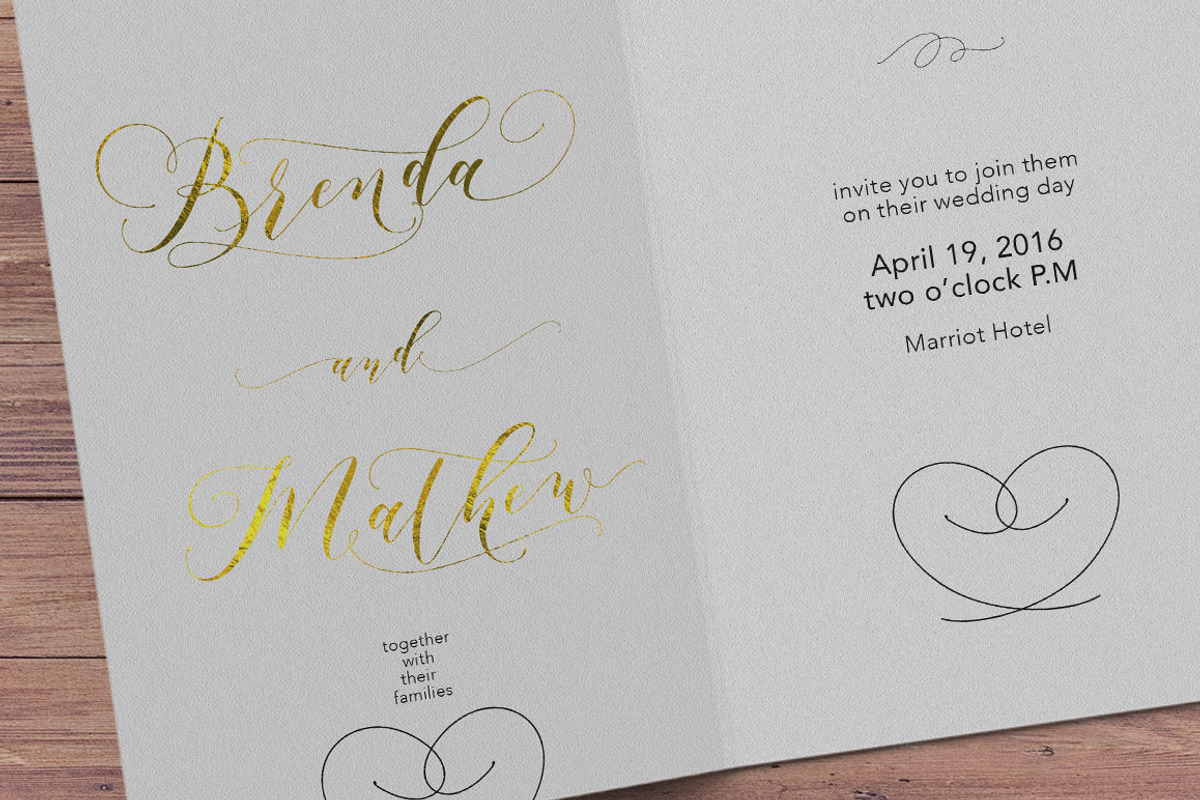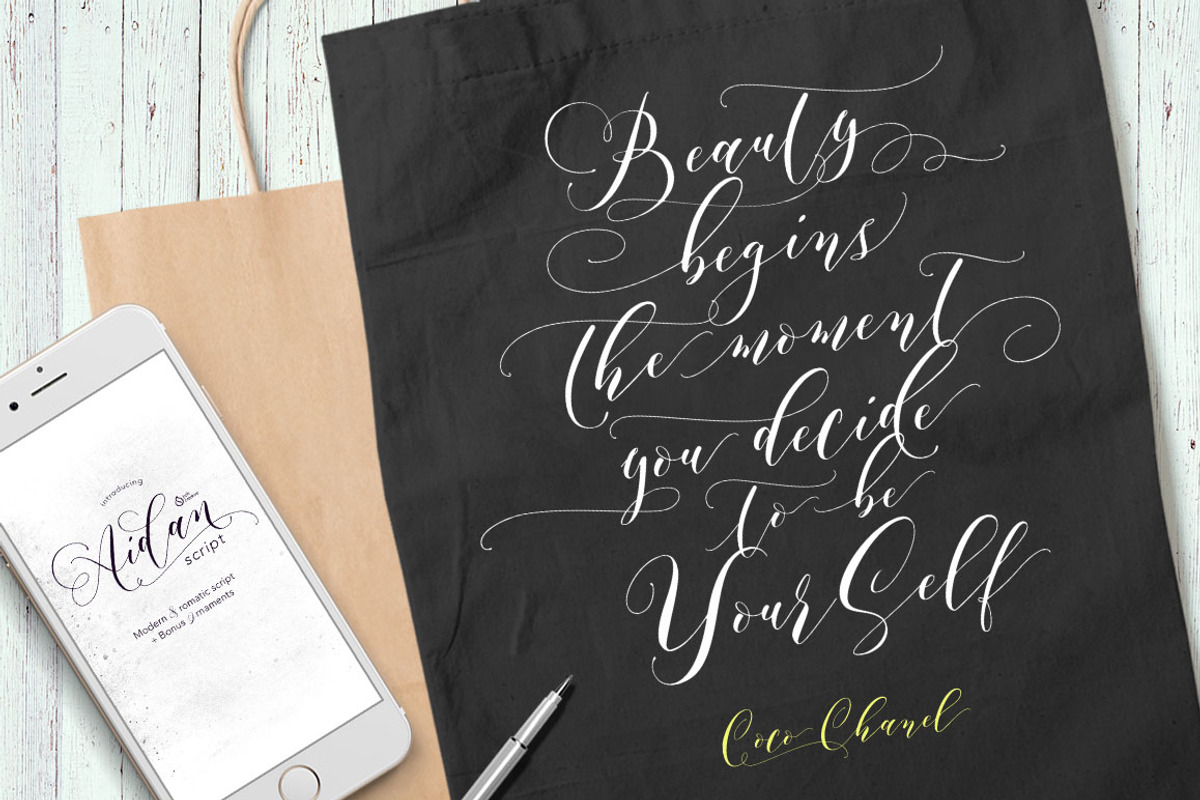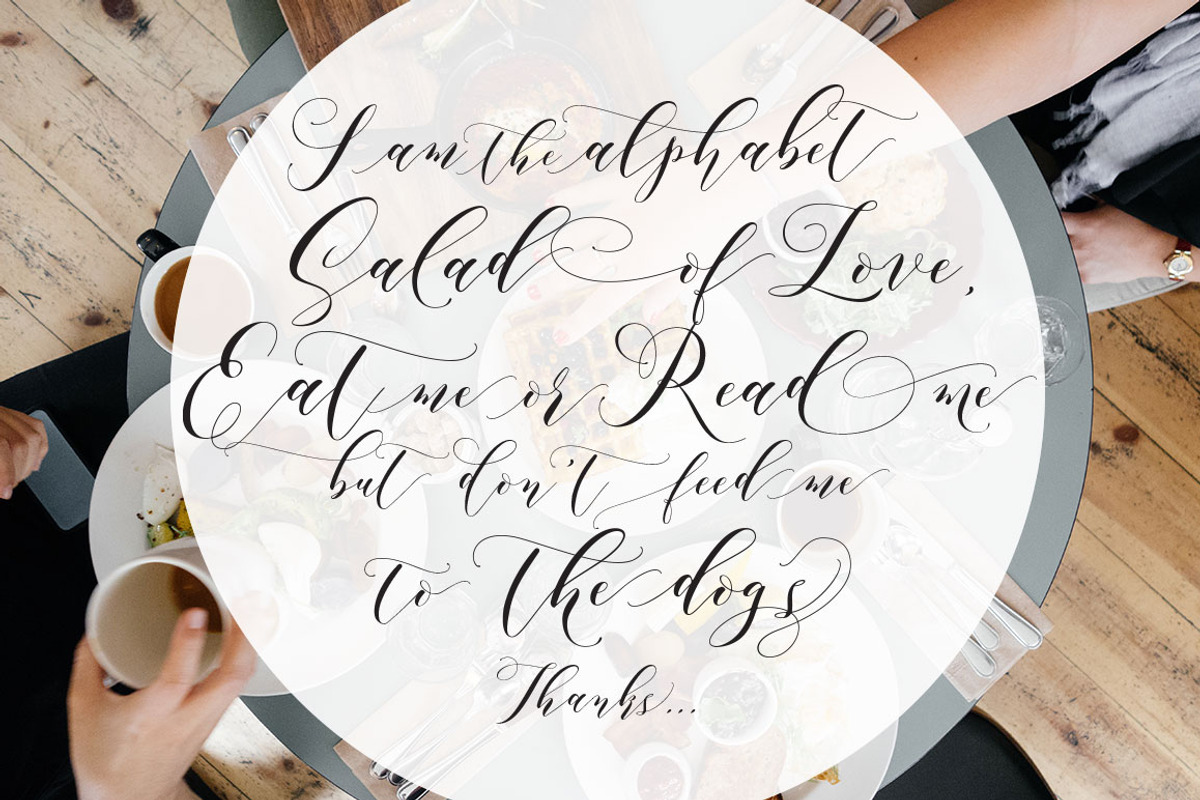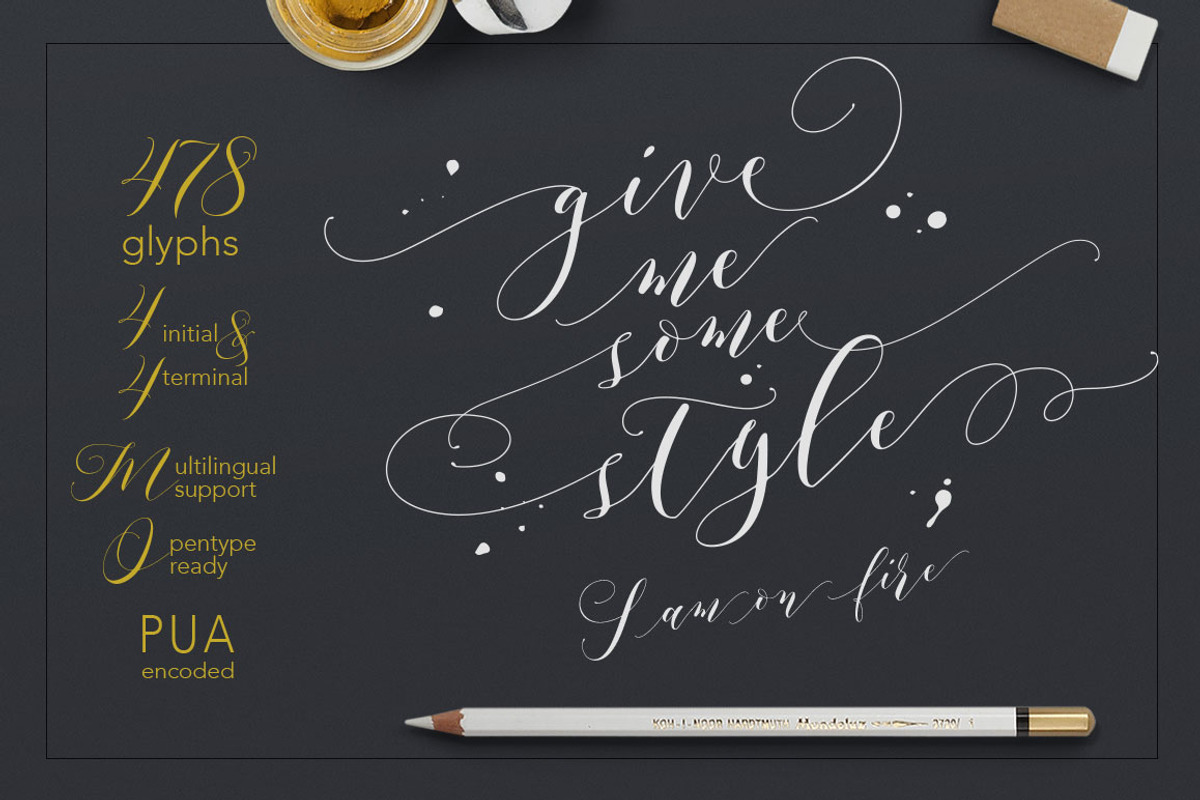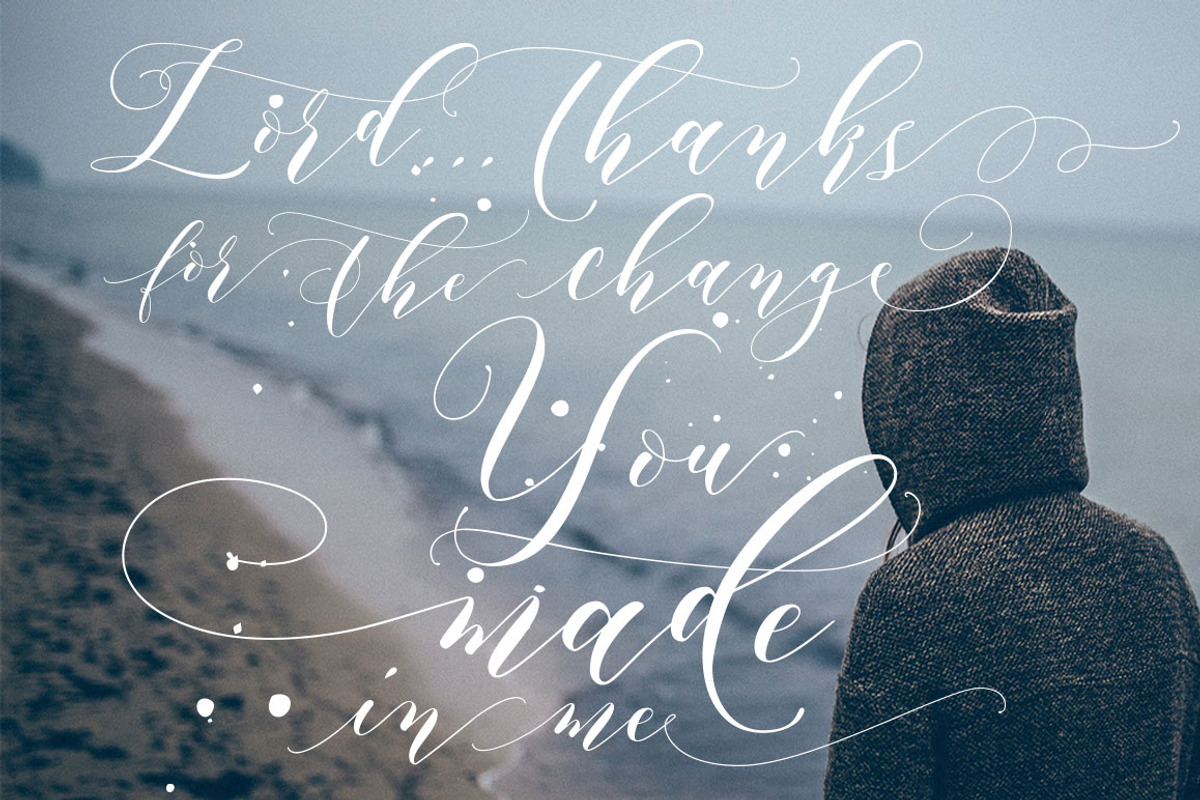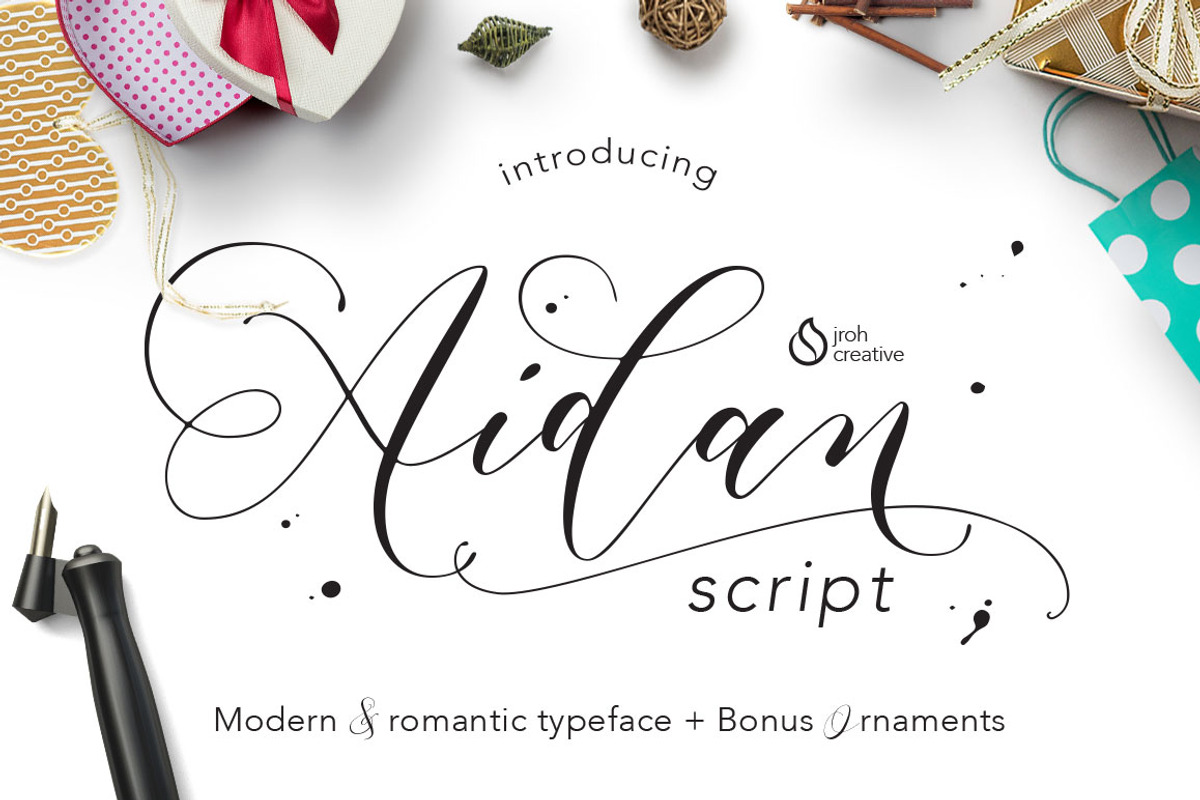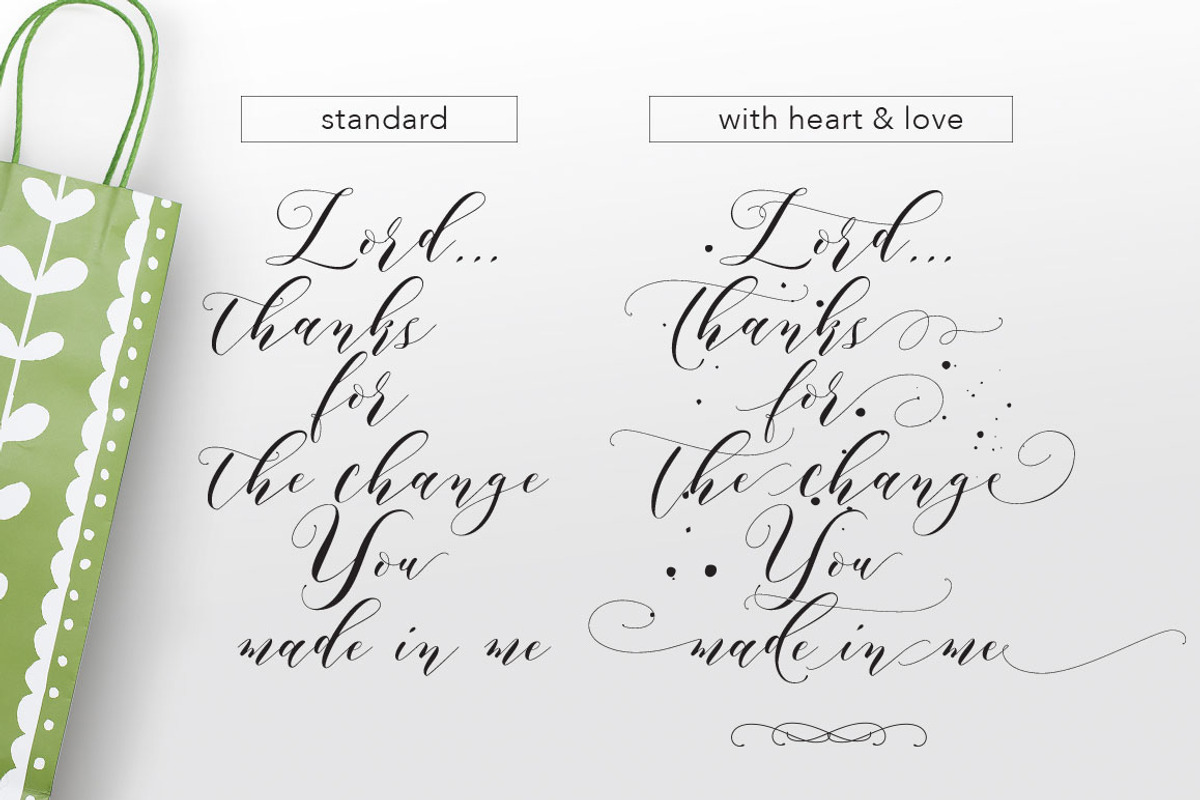
Hi everyone, I want to introduce my new Typeface, Aidan Romantic Script.
Aidan is a modern copperplate calligraphy with a romantic and dramatic movement. It suitable for wedding invitation, greeting cards, watercolor based design, or anything that need natural feeling to put on to.
Aidan font comes with a complete set of standard characters, eastern diacritic symbols, 478 glyphs in total, and 270 alternative characters as OpenType features to play with. The alternative characters were divided into several OpenType features such as Ligature, Contextual Alternates, and Stylistic Sets. You can create an attractive message by using the alternate characters in your design.
The features is: